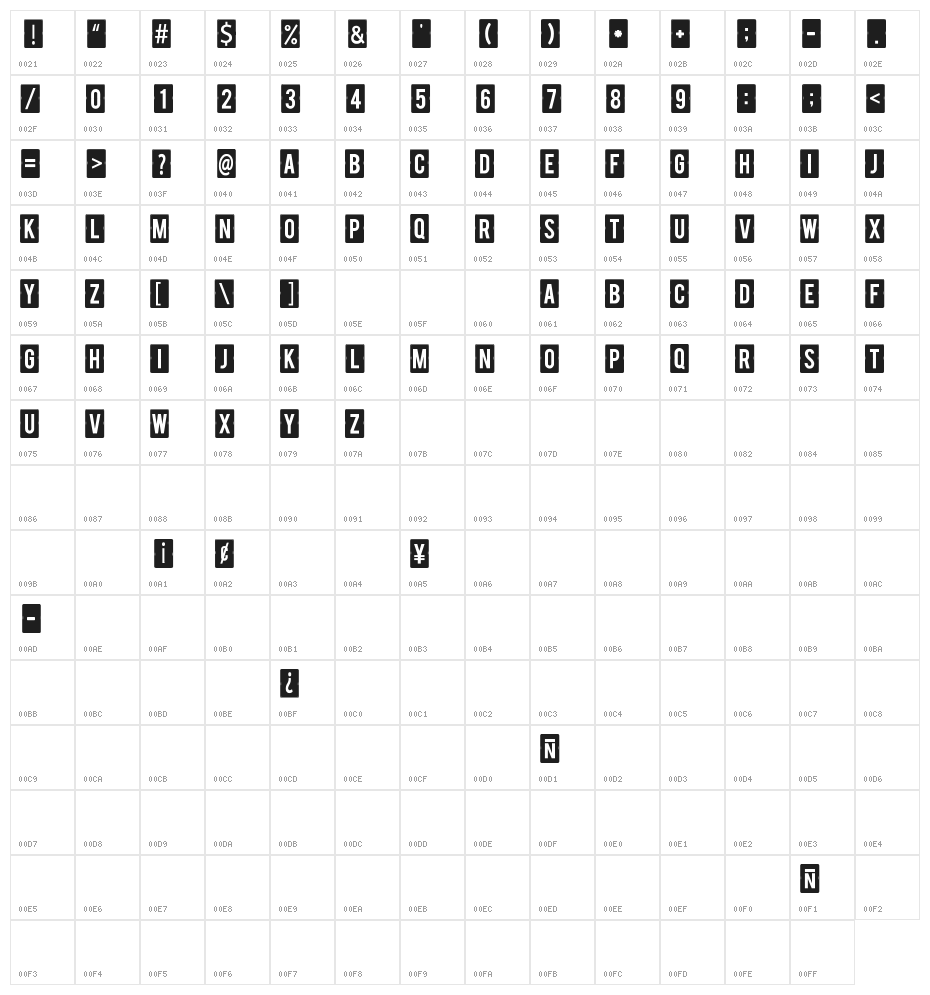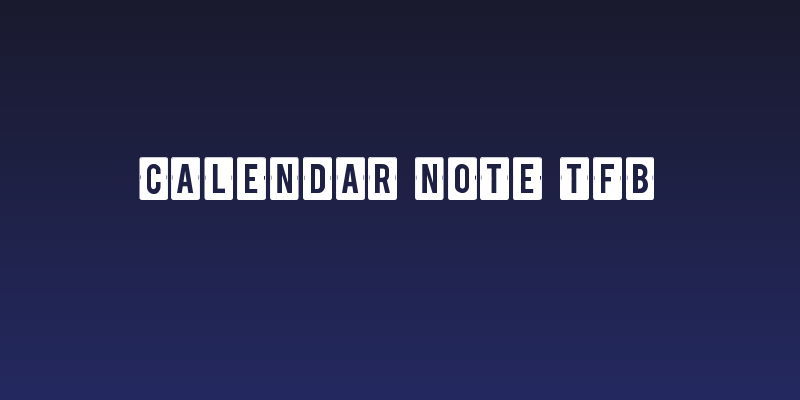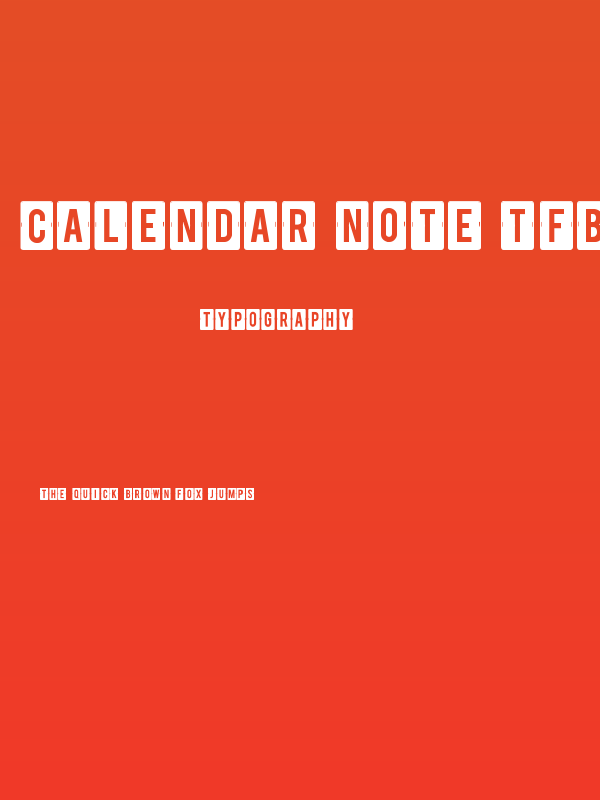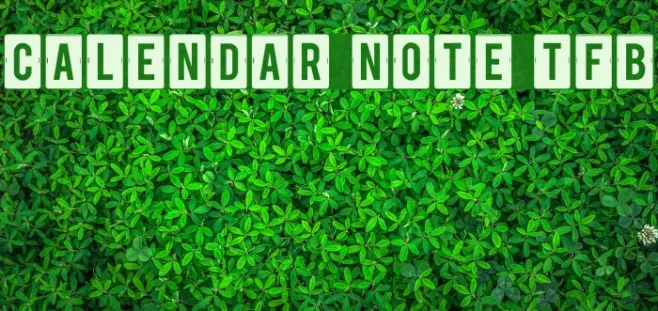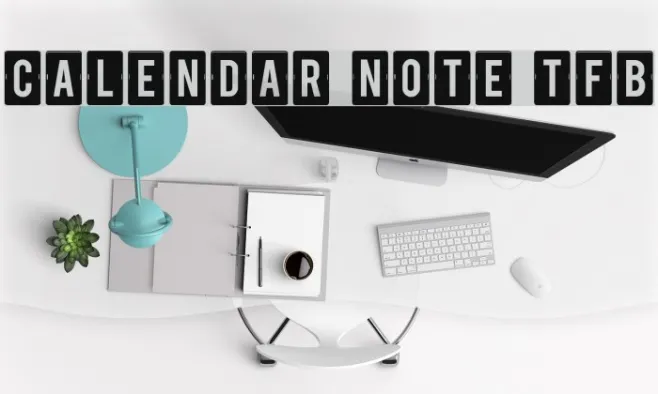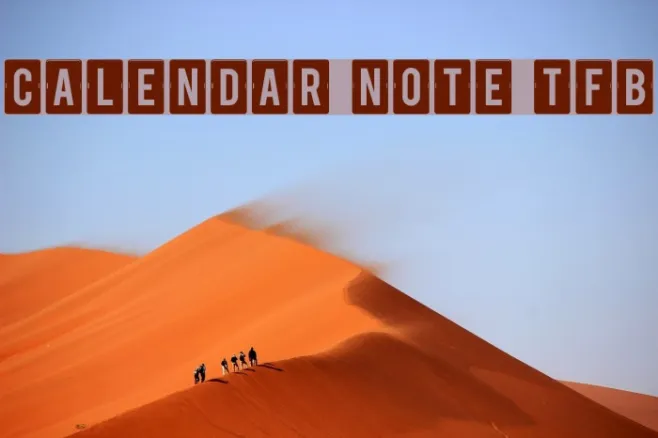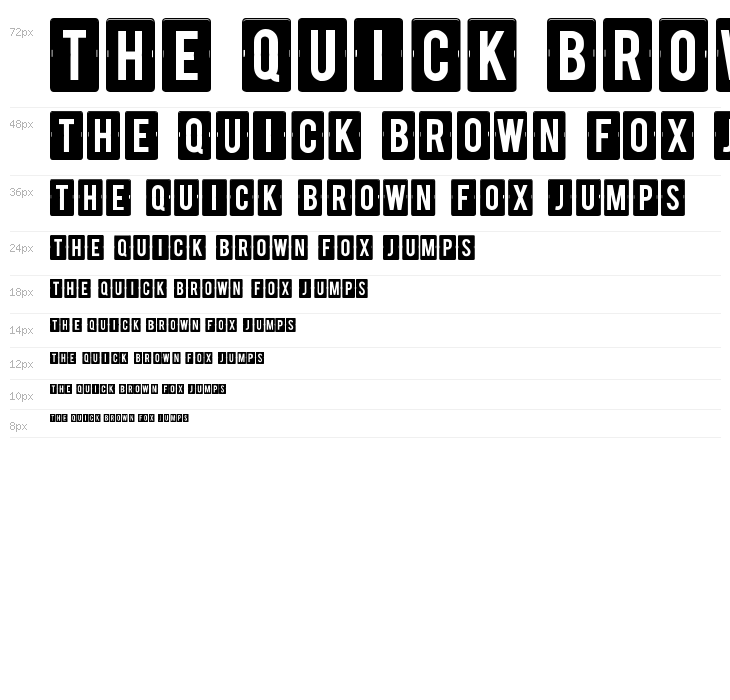
calendar note tfb Font
calendar note tfb Description
This font features a bold, blocky style reminiscent of old-fashioned flip clocks or digital displays. Each character is enclosed within a rectangular box, giving it a distinctive, structured appearance. The letters and numbers are uniformly bold, with a consistent width and height, creating a sense of uniformity and order. The design is highly legible, making it suitable for attention-grabbing displays. The special characters maintain the same bold and structured aesthetic, ensuring consistency across all elements.
| Use Case | Headlines, Logos, Signage |
| Proposed Projects | This font is perfect for projects that require a retro or digital theme, such as vintage-style posters, digital clocks, or signage. It can also be used in branding for tech companies or products that want to convey a sense of precision and modernity. |